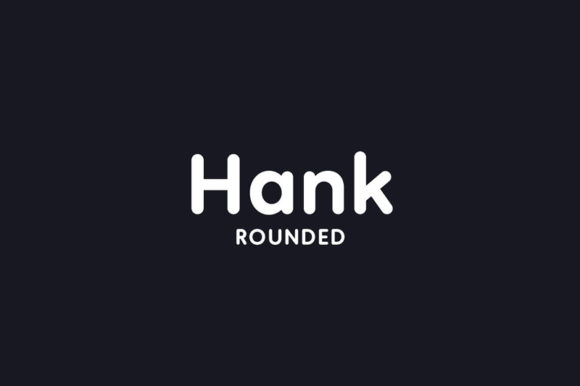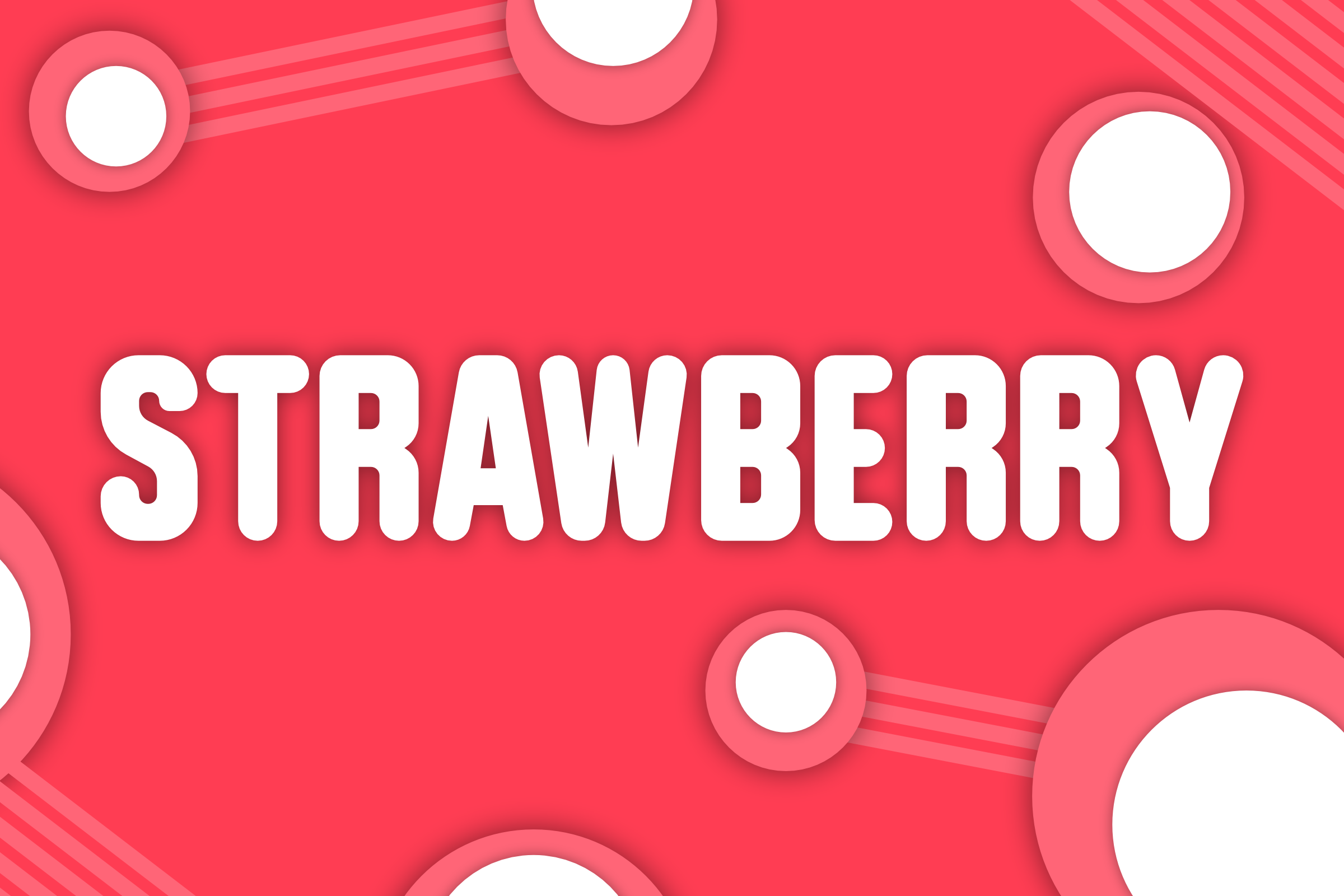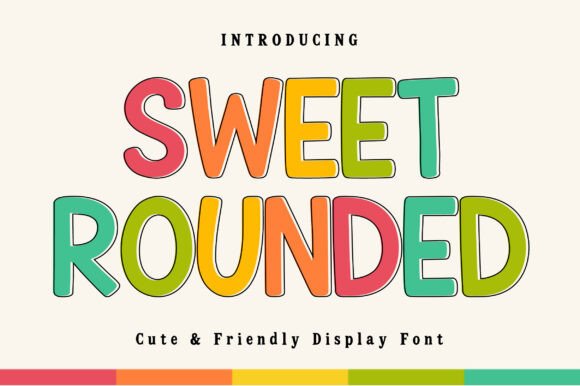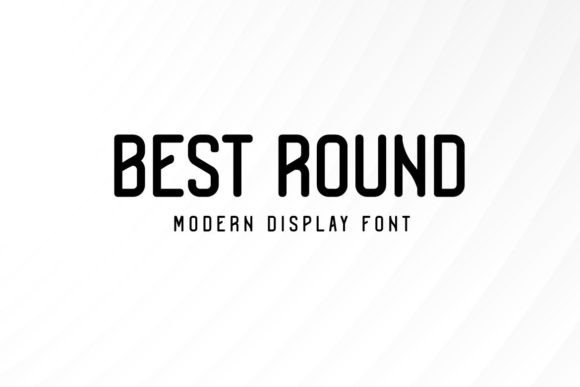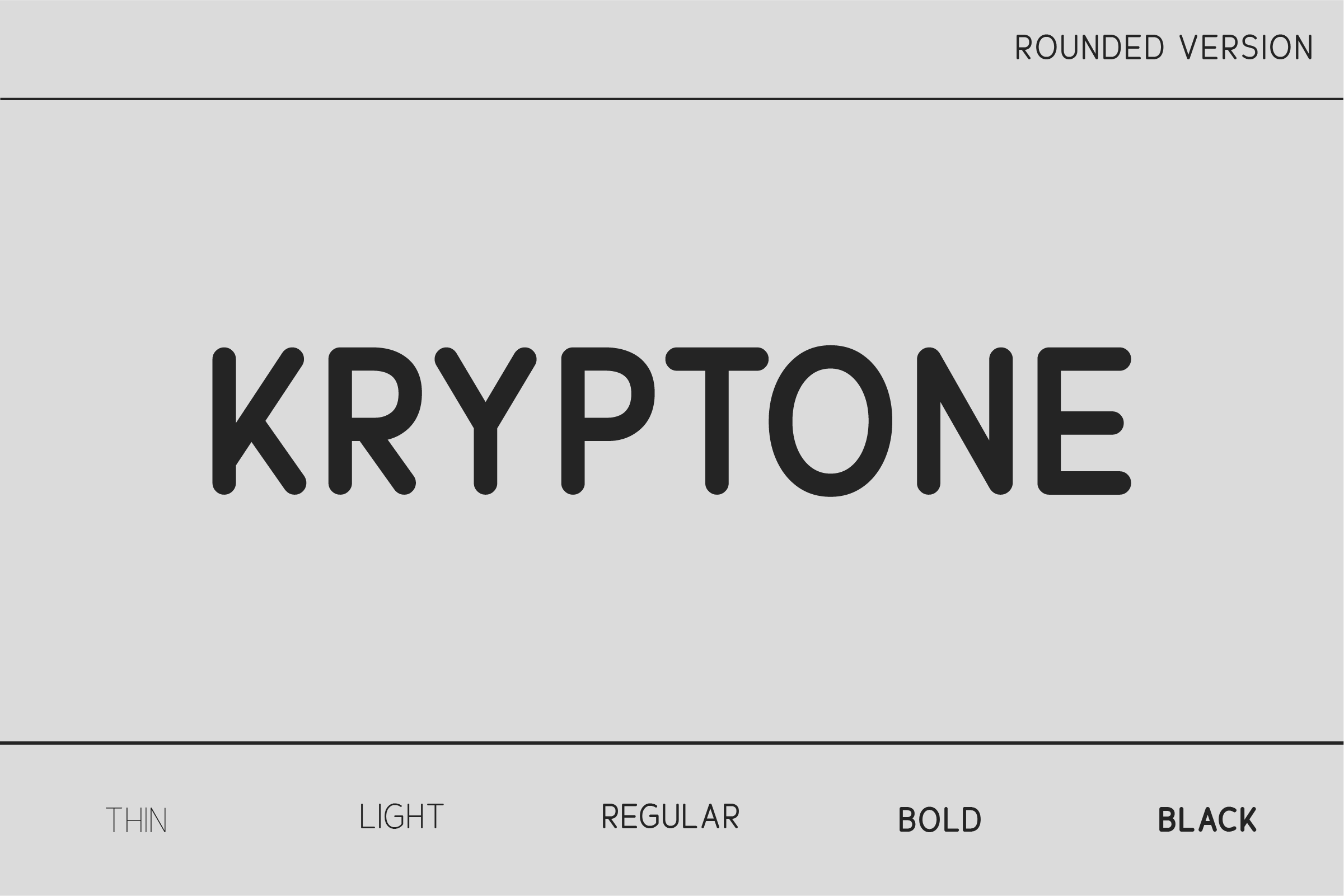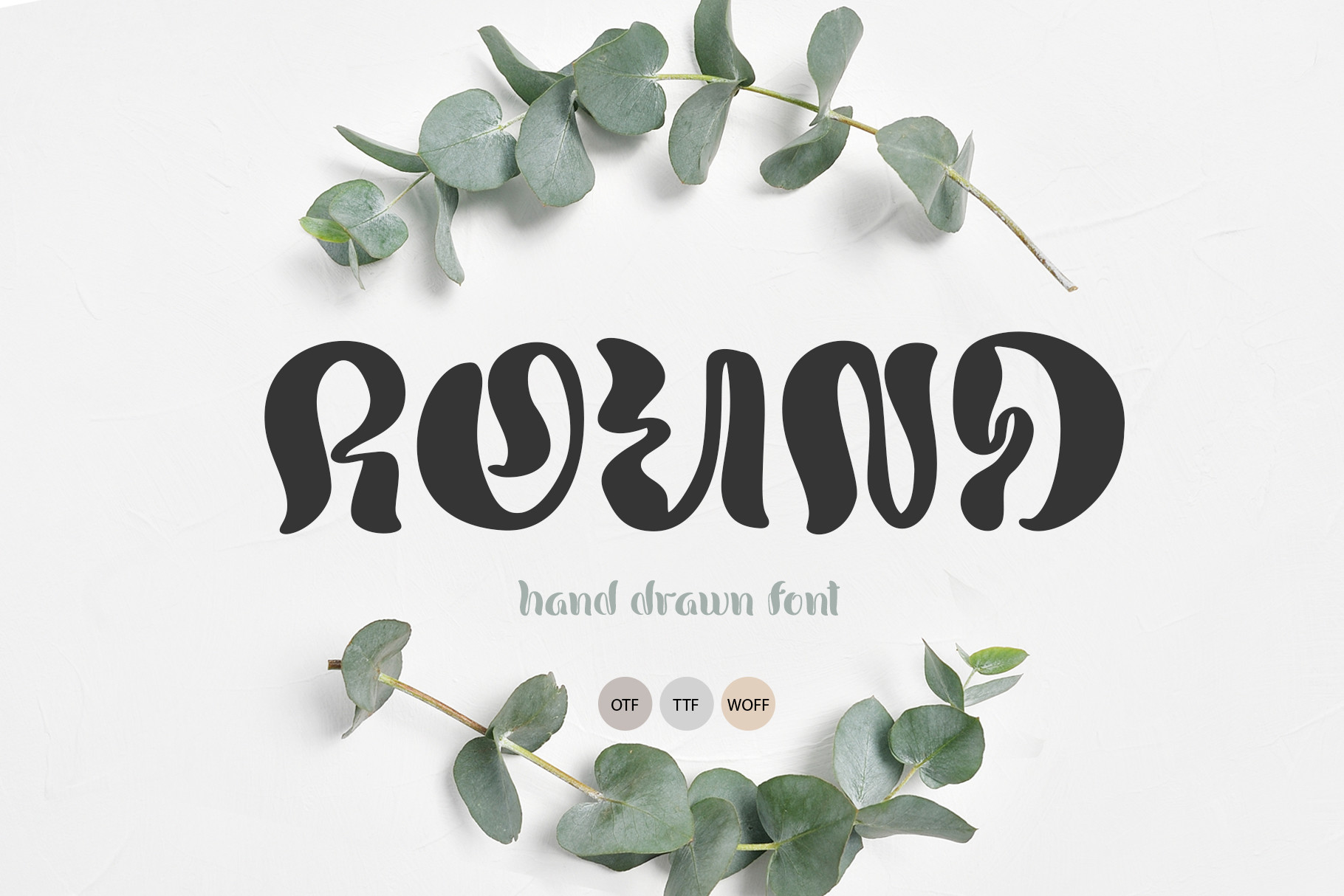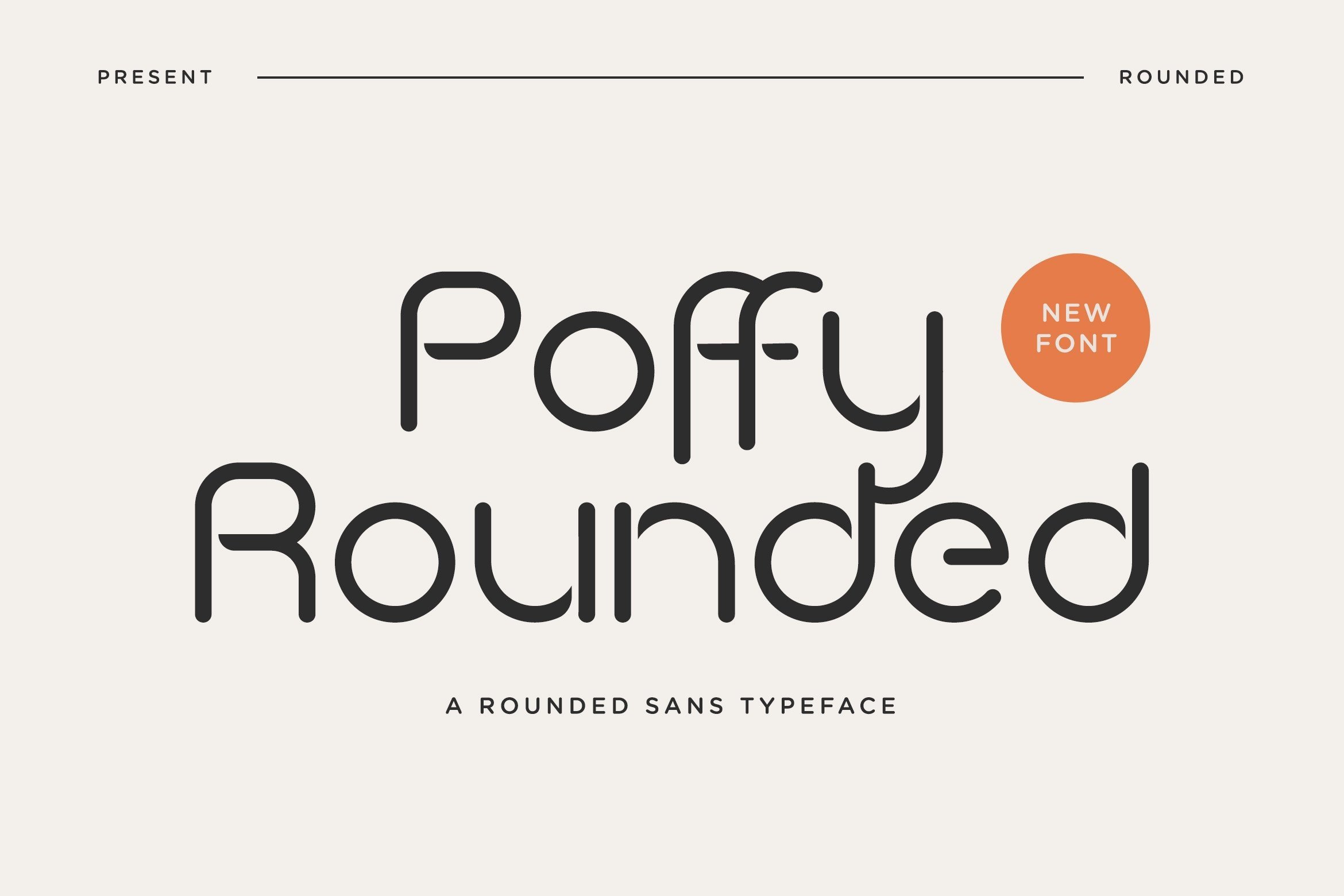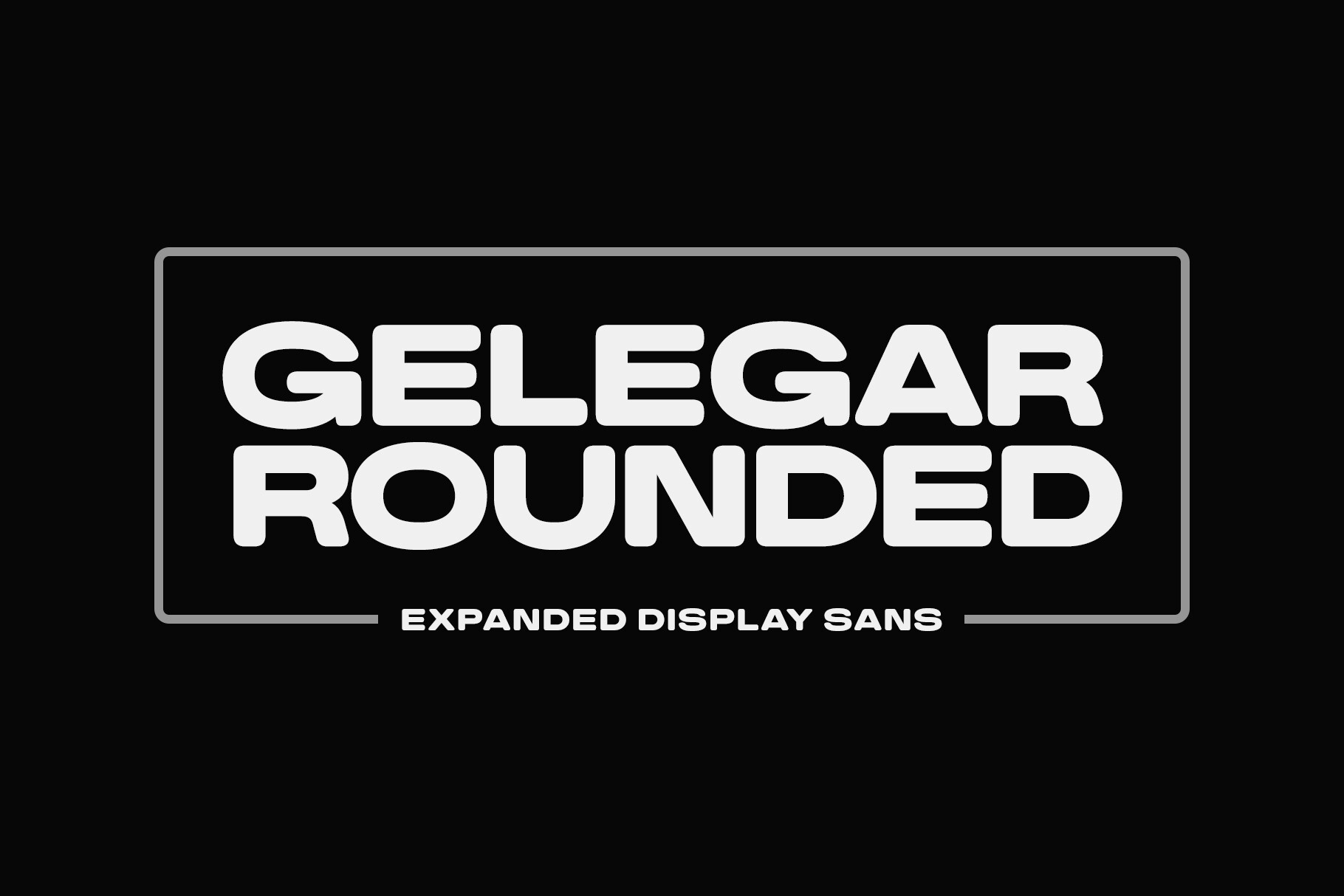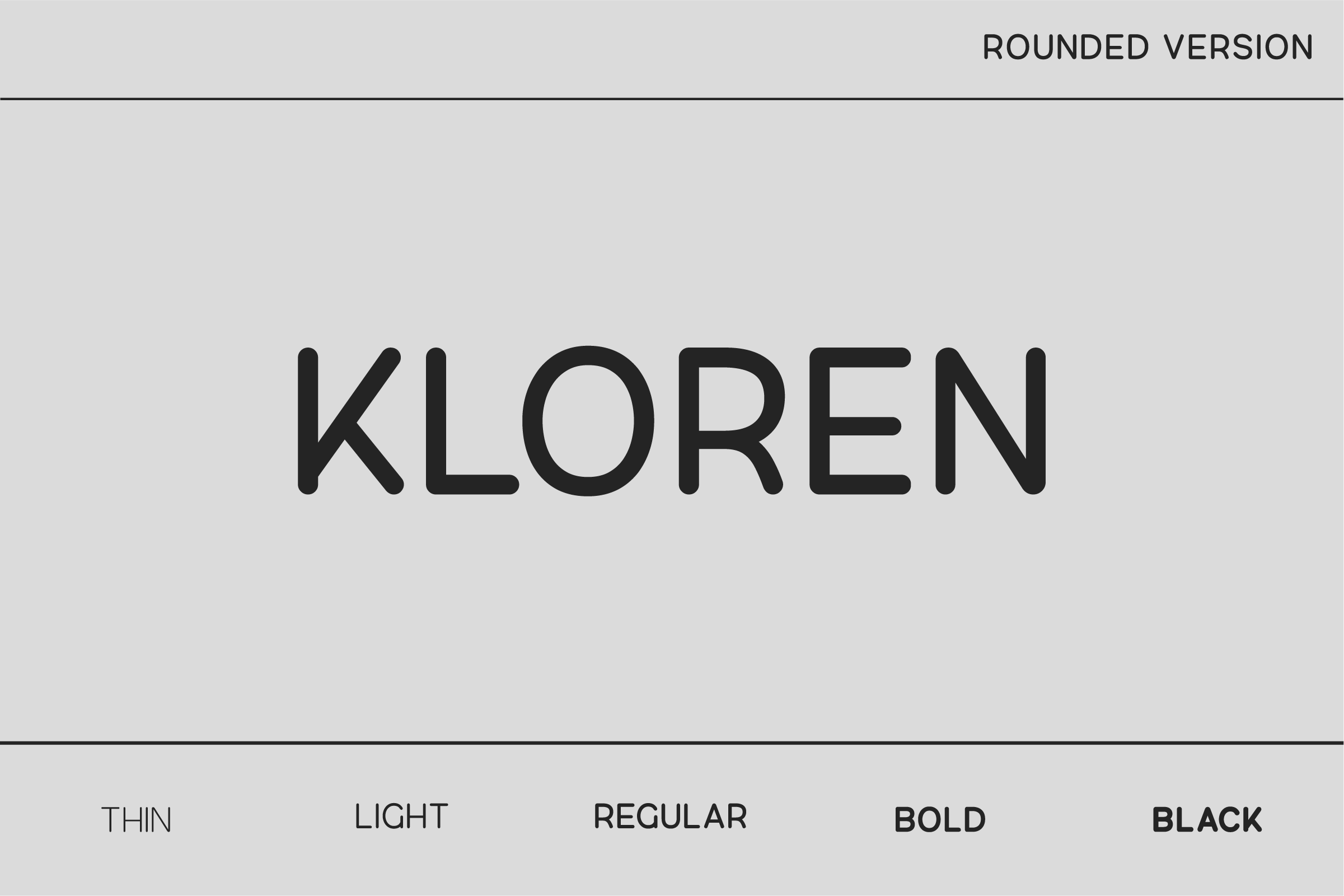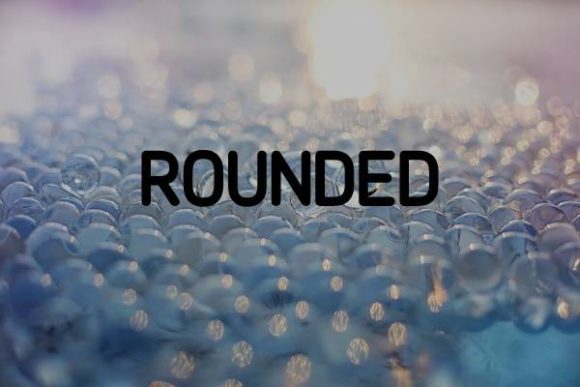
The 19 best rounded fonts for creative projects on Canva include a mix of free and premium options ideal for branding, social media, and marketing designs. Discover friendly, modern rounded typefaces curated for standout projects, with Creative Fabrica links to expand your font library and create professional, eye-catching visuals.
Why Rounded Fonts Matter for Canva Creative Projects
Rounded fonts bring a warm, modern, and approachable feel to any design, making them a top choice for branding, social media graphics, marketing collateral, and product packaging. For Canva users—whether designers, Etsy or Amazon sellers, bloggers, or small business owners—having access to a curated selection of the best rounded fonts is essential for crafting compelling visual identities and fresh, trend-driven projects. These typefaces soften the look of text, making it more inviting and highly readable across digital and print platforms. Canva’s global accessibility ensures that designers around the world can leverage both its native font library and imports from Creative Fabrica for even more distinct font options. In this resource, you’ll discover rounded fonts perfect for everything from cute kids’ invitations to sleek tech branding. This list makes it easy to choose fonts that not only look good but also communicate your brand voice authentically. For more insights and Canva font tips, check out our 22 Clean Sans Serif Fonts That Truly Stand Out.
Top 5 Rounded Fonts for Canva: Quick Comparison
| Hank Rounded | Rounded Sans Serif | Branding, Tech, Modern Businesses | Commercial (Creative Fabrica) |
| Bold Rounded Font | Thick, Bold, Playful | Headlines, Logos, Posters | Commercial (Creative Fabrica) |
| Sweet Rounded | Soft, Friendly Script | Invitations, Greeting Cards | Commercial (Creative Fabrica) |
| Best Round | Modern, Geometric Rounded | Websites, Startups, Ads | Commercial (Creative Fabrica) |
| Kryptone Rounded | Casual, Rounded Display | Social Posts, Merch Designs | Commercial (Creative Fabrica) |
In-Depth Reviews: 19 Best Rounded Fonts for Canva
Hank Rounded Font by Reghardt · Creative Fabrica
Hank Rounded is a sleek, modern sans serif with smooth, rounded corners, making it a professional yet approachable choice for brands and digital campaigns. Its balanced, geometric shapes feel fresh, versatile, and tech-friendly. This font is perfect for tech websites, app branding, corporate social media templates, and minimalist logos. Use it on business cards for a contemporary twist or in digital presentations where readability matters most.
Bold Rounded Font Cut Files Graphic by RADesigns21 · Creative Fabrica
Bold Rounded is fun, thick, and ultra-legible. The hefty strokes and bubbly roundness make this font stand out in headlines, playful branding, and bold advertising. Try it for party banners, striking logo designs, sticker sets, or kids’ apparel graphics to give your project a cheerful, memorable look that instantly grabs attention.
Sweet Rounded Font by Craft Artist · Creative Fabrica
Sweet Rounded exudes charm with its soft curves and approachable letterforms, perfect for projects aiming for a gentle, heartfelt mood. This font shines in wedding invitations, personalized greeting cards, or branding for self-care and wellness products. Its casual script vibe works wonders for quotes, handmade goods, or boutique promotions in Canva.
Best Round Font by Mightyfire · Creative Fabrica
Best Round offers a clean geometric look with gently rounded edges for a distinctly modern, professional flair. Great for website headers, tech startups, and ad graphics, this font brings a polished yet friendly appeal. Use it for app UI elements, small business logos, or digital brochures that require clarity and a current aesthetic.
Kryptone Rounded Font by Nan Design · Creative Fabrica
Kryptone Rounded is full of personality with playful curves and smooth letterforms. Its eye-catching, almost cartoonish style is ideal for social media posts, product packaging, classroom printables, or trendy T-shirt designs. This font will help your creative projects pop with friendly character and broad global appeal.
Round Font by Happy Letters · Creative Fabrica
This hand-drawn display font delivers a whimsical, liquid-inspired roundness for playful projects. Express yourself in event invitations, party banners, or menu designs with its unique, informal appearance. Round Font is perfect for educators, creative marketers, or anyone seeking a lighthearted feel for Canva graphics or printable art.
Poffy Rounded Font by TypeFactory · Creative Fabrica
Poffy Rounded is a soft, bubbly sans serif that projects warmth and friendliness. Use it for product packaging, playful branding, or crafts that require a cozy touch. It’s especially popular for baby shower invitations, bakery ads, YouTube intros, or Etsy shop banners needing inviting typographic energy.
Gelegar Rounded Font by locomotype · Creative Fabrica
Gelegar Rounded pairs soft geometric shapes with solid construction, offering a look that’s both fun and trustworthy. It’s a superb pick for small business logos, event promos, or printables for classrooms and community centers. The friendly rounded edges make it adaptable for global audiences in marketing materials and Canva templates.